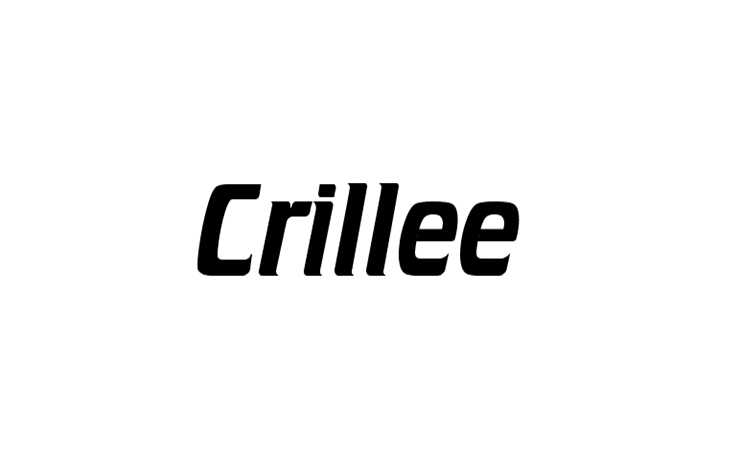
CRILLEE FONT is one of the most popular condensed technical fonts ever. It works great for packaging, posters, way-finding, and modern logo design too.
A well-known font foundry ALLTYPE takes the charge of designing it and releasing it for the first time.
All letters have been professionally crafted in which you will notice that the designer has added clean baselines, height, width, and italic look. Thus, definitely help to give better and excellent results.
Extremely elliptical stroke edges express an exceptionally clear texture with excellent readability. Several designers are using it in their regular work tasks.
Take a look at some of the images we’ve put together here to help you with its structure.
This fine quality font family is a favorite for official uses, business cards, logo designs, titling & headlines, greeting and birthday cards, labels, product packaging as well as printing on fabric industries.